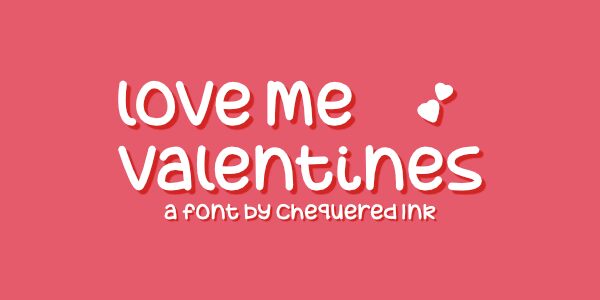
Love Me Valentines is a captivating font crafted by Chequered Ink, exuding a personal touch with its handwritten style and semi-bold weight. Its fluid, expressive lines evoke the charm of a heartfelt note, making it an ideal choice for projects that require a touch of intimacy and affection. The aesthetic appeal of Love Me Valentines lies in its balance between legibility and artistic flair, ensuring that your message is both beautiful and clear.
This font's playful yet elegant demeanor makes it perfectly suited for Valentine's Day cards, wedding invitations, or any design piece that calls for an infusion of love. Whether you're aiming to convey romance or simply add a handcrafted look to your creative work, Love Me Valentines offers versatility while maintaining its distinct character.